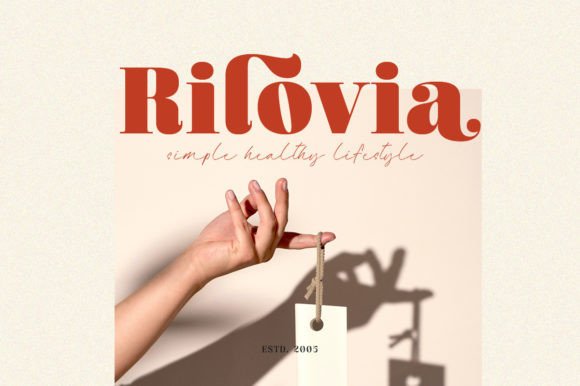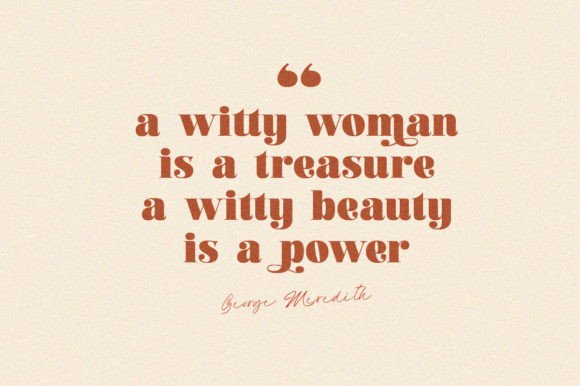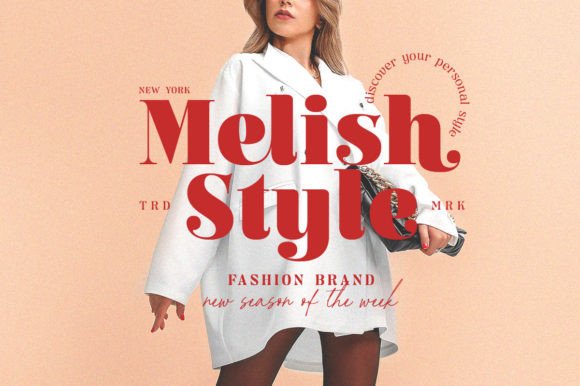
Billie Crimson Font
Billie Crimson is a classic and beautiful serif font that evokes a sense of timeless elegance. With its refined curves and understated design, it’s perfect for projects that require a touch of sophistication, from book covers to high-end branding. “Billie Crimson” is a font that exudes confidence and beauty, and it will never go out of style.This font is PUA encoded which means you can access all of the amazing glyphs and ligatures with ease!